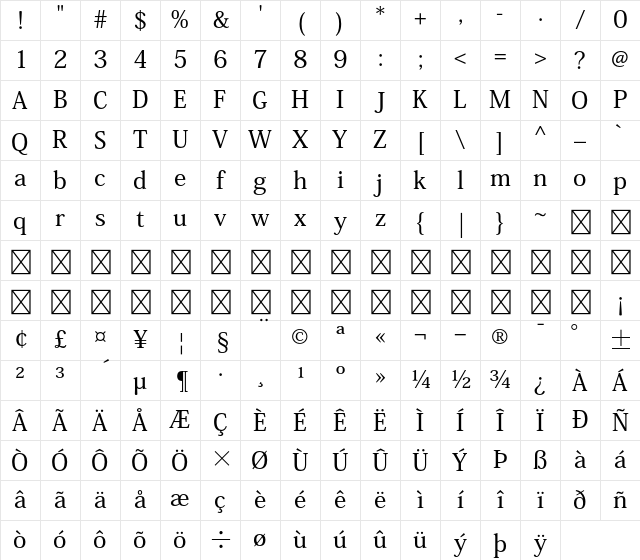
Ryo Text PlusN M
Style: M
Designer: Masahiko Kozuka & Ryoko Nishizuka
Design Context for Ryo Text PlusN
Ryo Text PlusN is a composed and adaptable typeface that performs quietly and consistently across a wide range of design contexts.